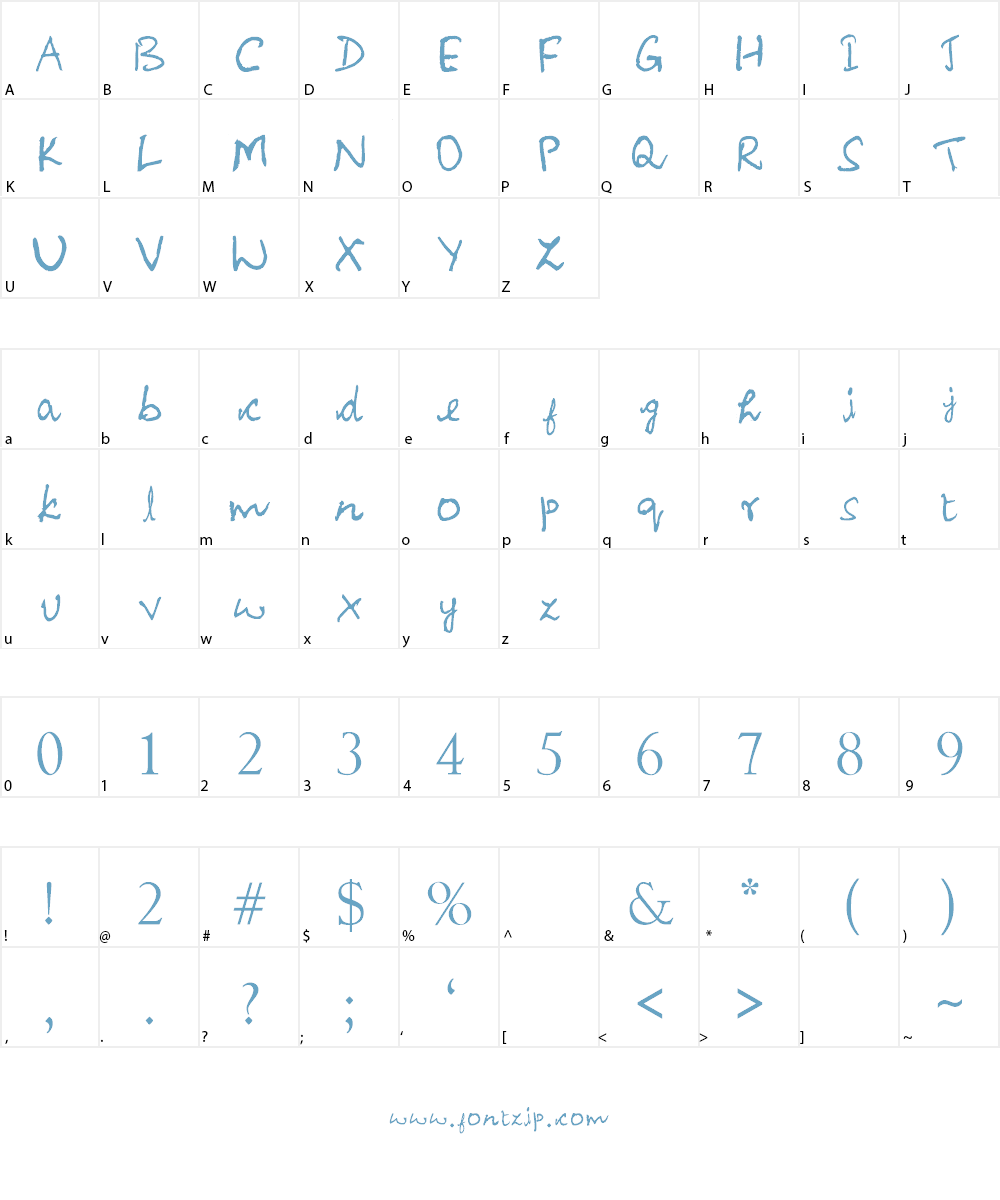
Akila font is a unique font which is designed based on handwriting of Akila Ananthanarayanan. It is an elegant font and is extremely useful while designing/creating pictures in photoshop. The font’s style give it the versatility necessary to meet any type of graphic design challenge — greeting cards, Posters, postcards,personal letters, gifts etc. Akila Font will give originality and a new look to your designs.